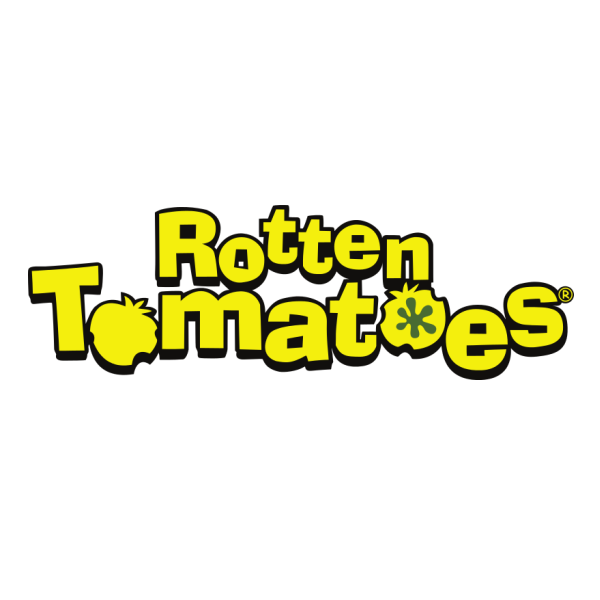
Rotten Tomatoes Font
Fonts in UseRotten Tomatoes is a popular review aggregation website that collects reviews from critics and audiences to provide a percentage rating of how well a movie or TV show was received. The website has become a trusted source for film and television recommendations.
The original Rotten Tomatoes logo was likely based on the Ad Lib typeface by Freeman Craw. It is a commercial typeface and you can learn more about it here.
In March 2018, Rotten Tomatoes updated its visual brand identity with a new logo by Emily Oberman and Pentagram, featuring a cleaner typeface and a new color scheme while retaining the iconic splat and tomato icons.